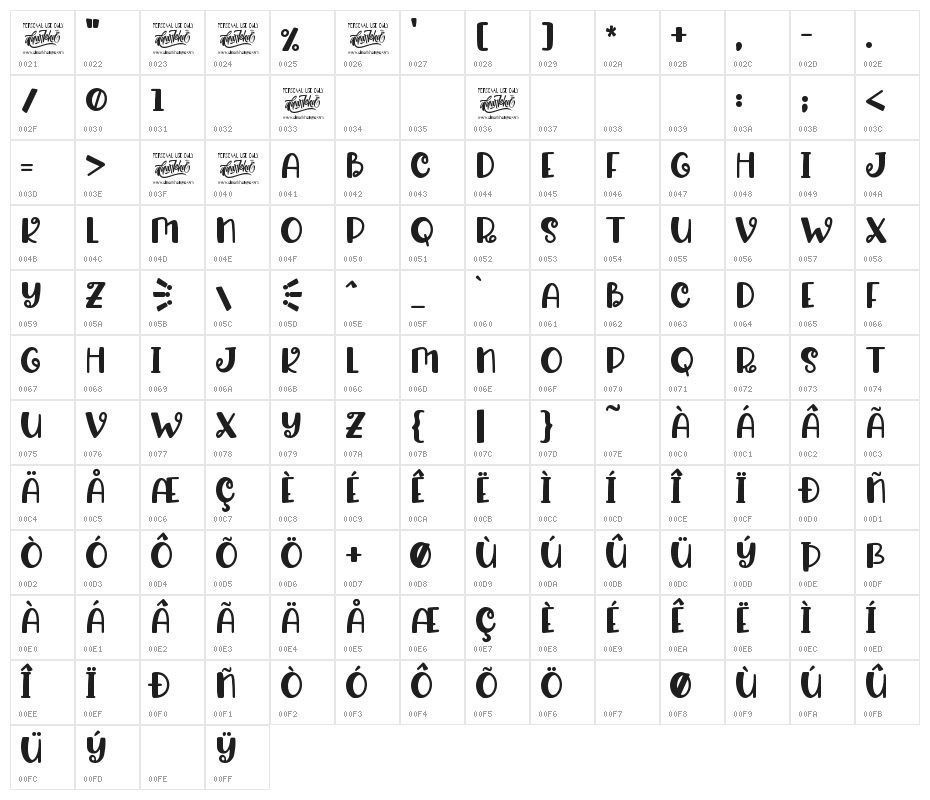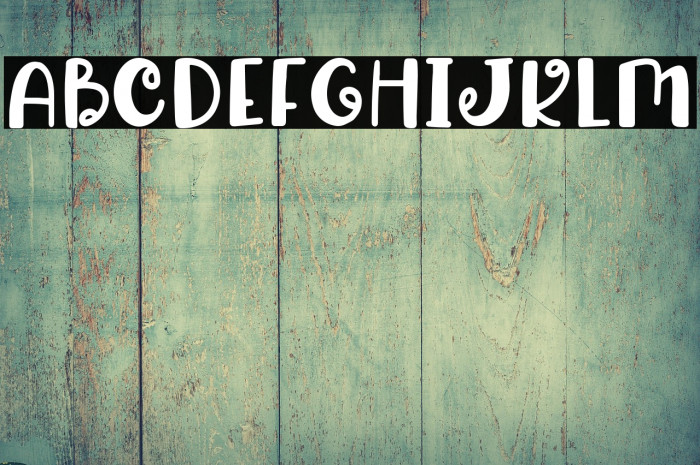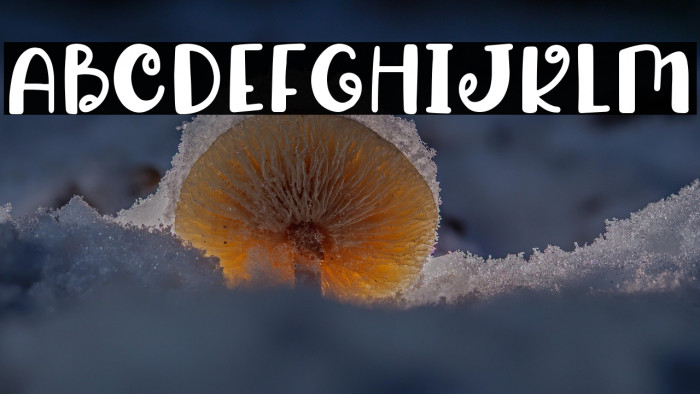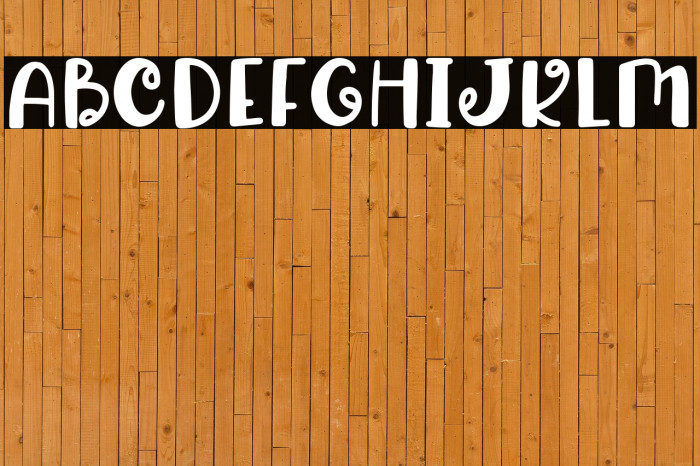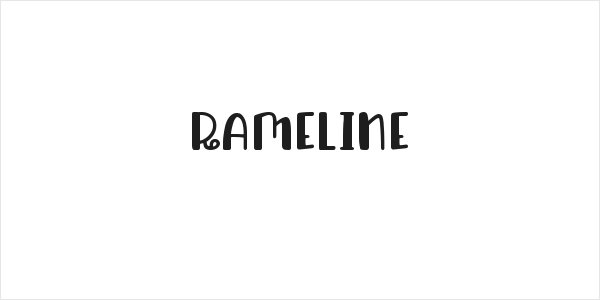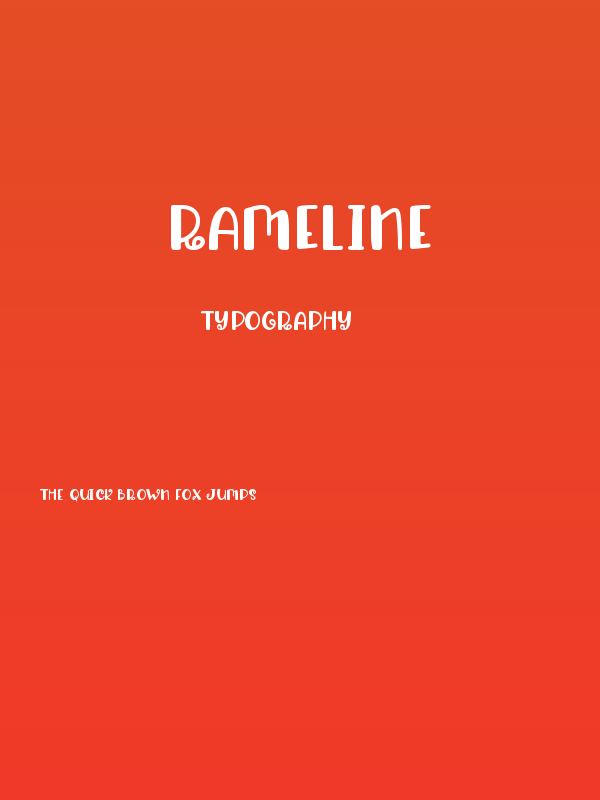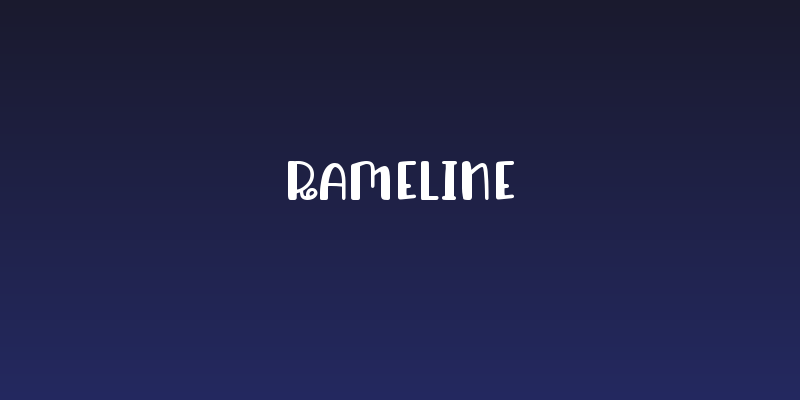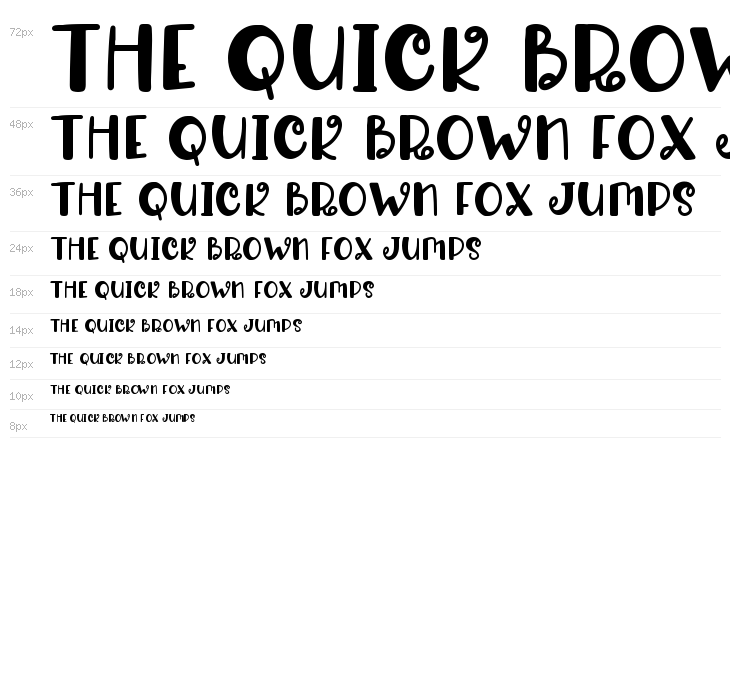
Rameline Font
Rameline Description
This font features a playful and bold style with a unique blend of rounded and angular elements. The uppercase letters exhibit a whimsical flair, with some characters incorporating subtle curls and loops, adding to its charm. The lowercase letters maintain a consistent style, complementing the uppercase with their rounded forms. The numbers are bold and easily legible, while the special characters are creatively designed to match the overall aesthetic. This font is ideal for projects that require a fun and engaging appearance, making it suitable for children's books, playful branding, or creative advertising.
| Proposed Projects | Children's books, playful branding, creative advertising, posters, and greeting cards. |